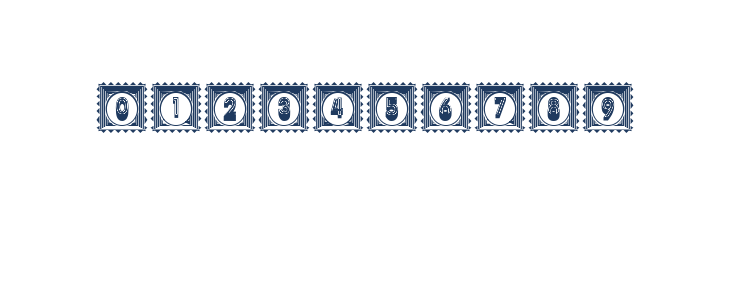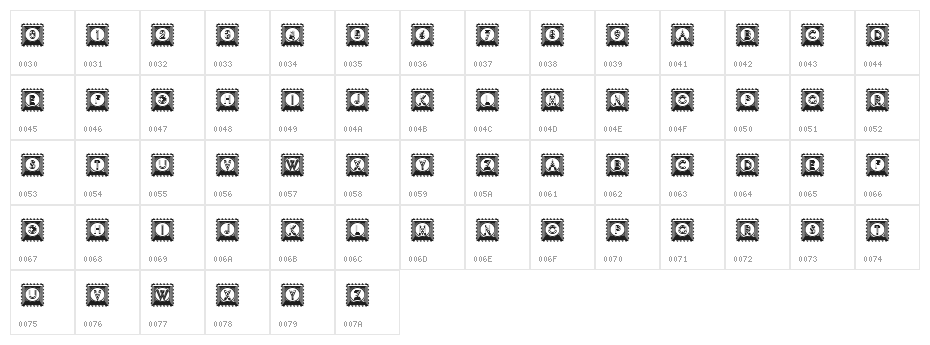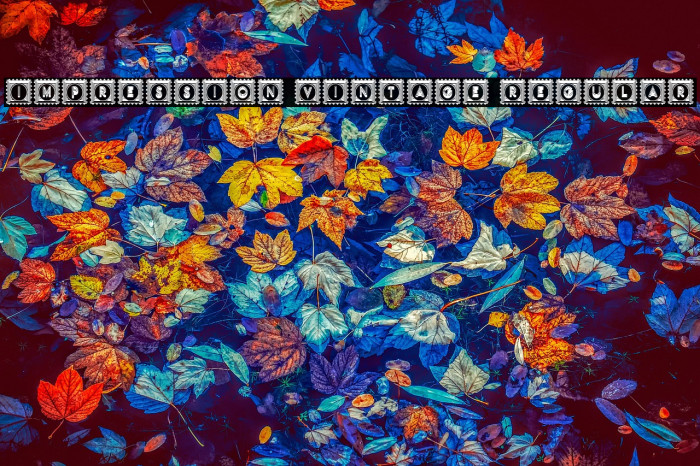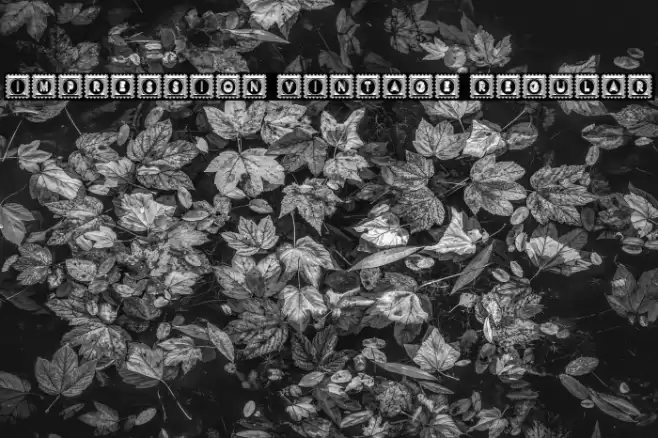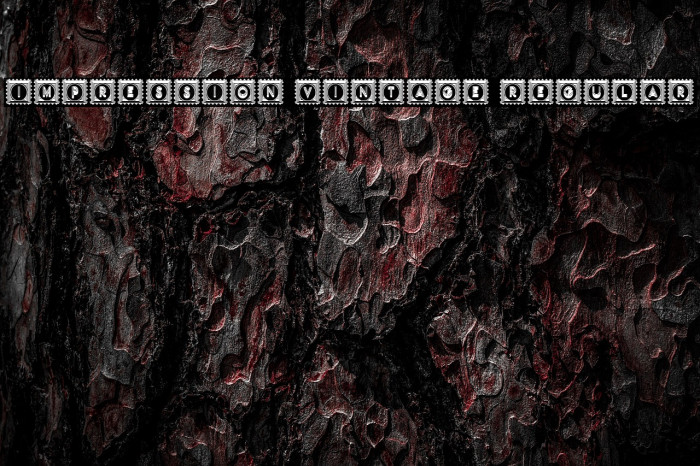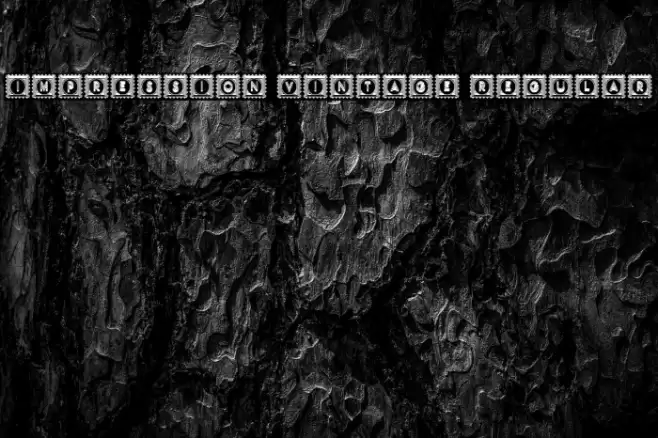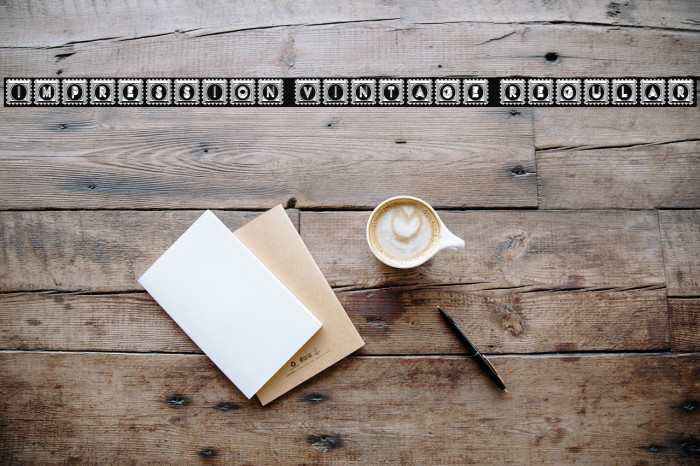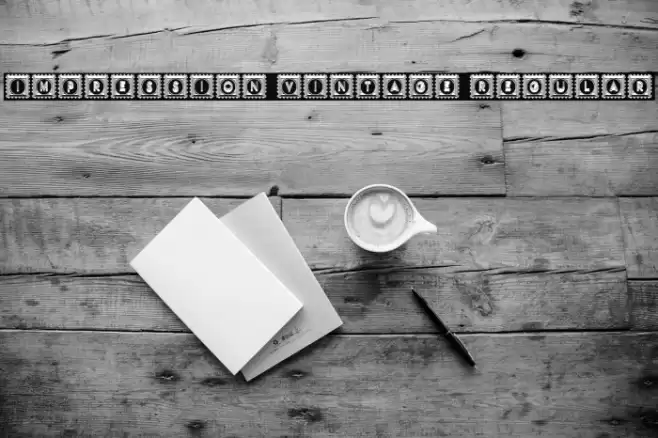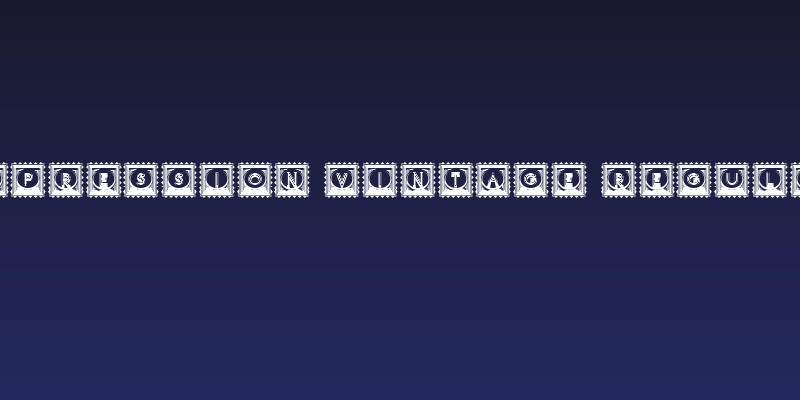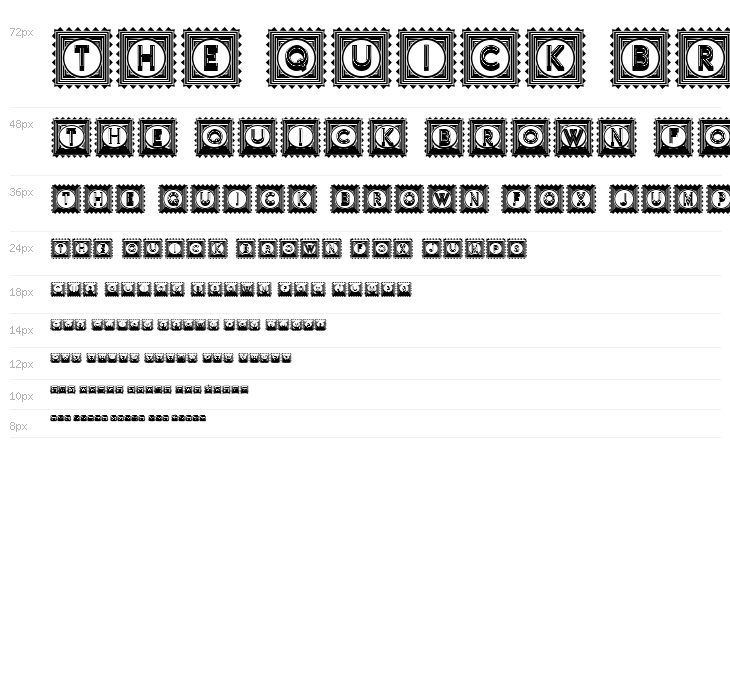
Impression Vintage Regular Font
Impression Vintage Regular Description
This font features a vintage and decorative style with a unique, ornate design. Each character is enclosed within a square frame that resembles a postage stamp, complete with a serrated edge. The letters themselves have a bold, geometric form with intricate patterns and embellishments inside, giving them a distinct, eye-catching appearance. The numbers and special characters follow the same design principles, maintaining consistency across the entire set. This font is ideal for projects that require a touch of nostalgia or a retro aesthetic, making it perfect for themed events, posters, or branding that seeks to evoke a sense of history and elegance.
| Use Case | Headlines, Logos, Decorative text |
| Proposed Projects | Ideal for vintage-themed posters, event invitations, branding, and packaging designs. |